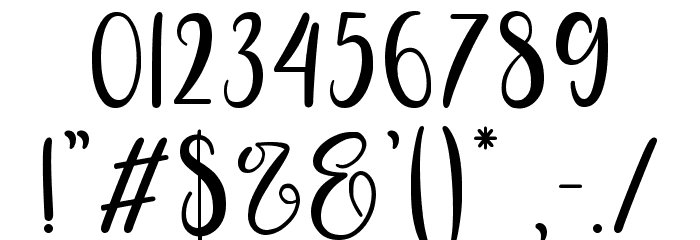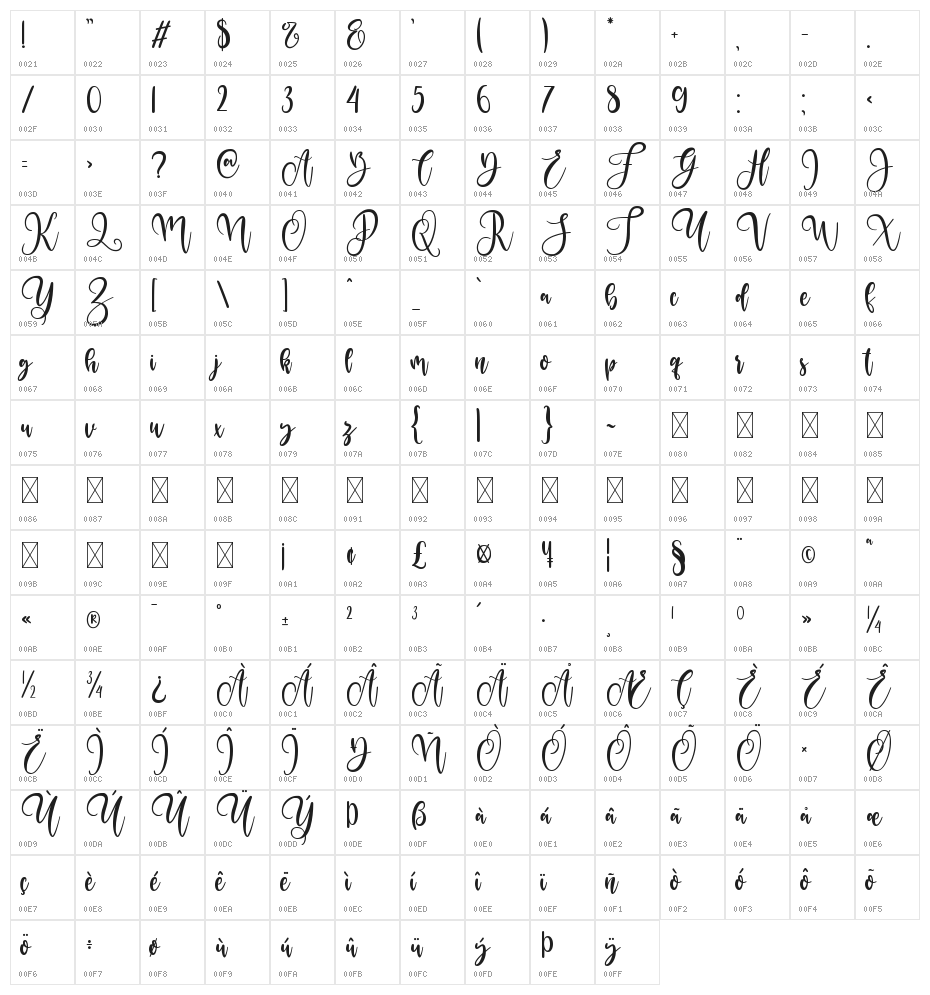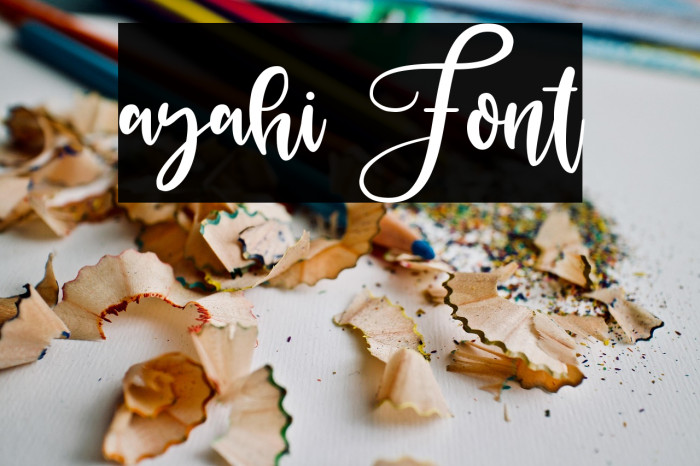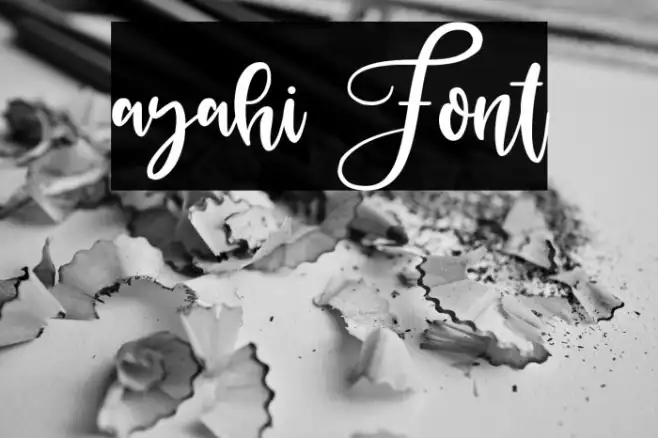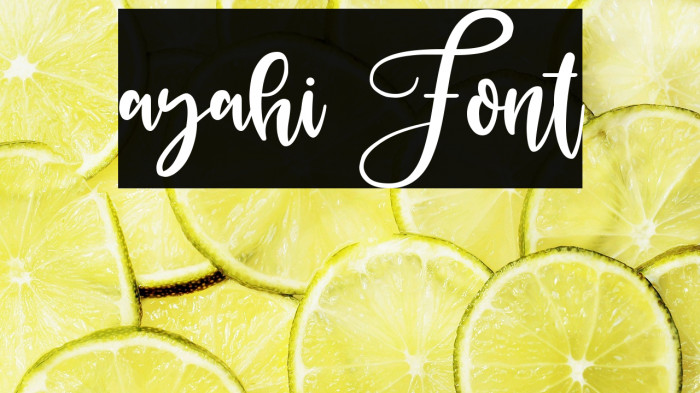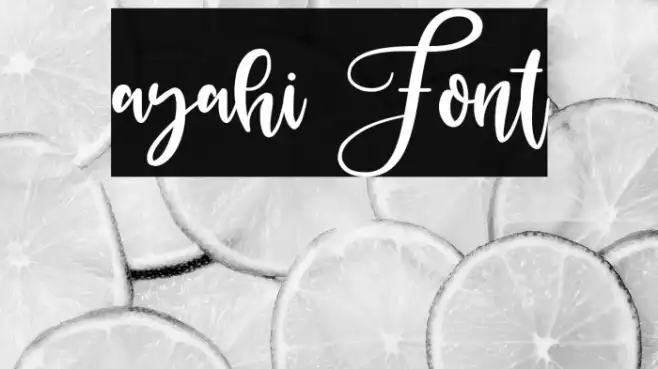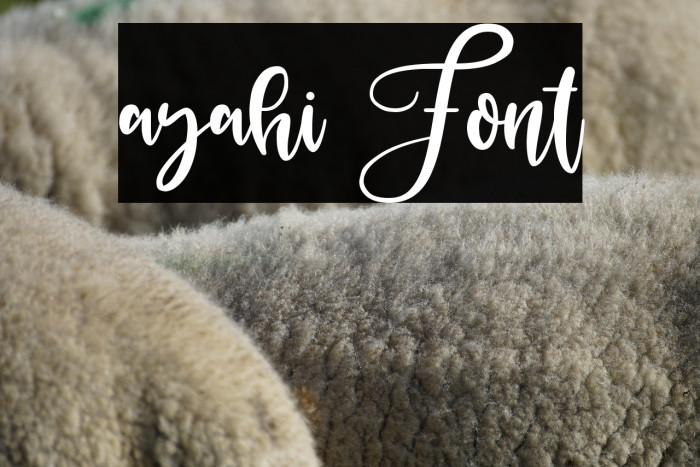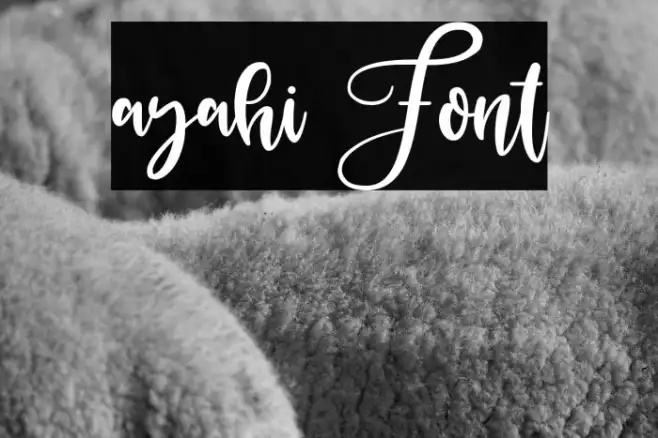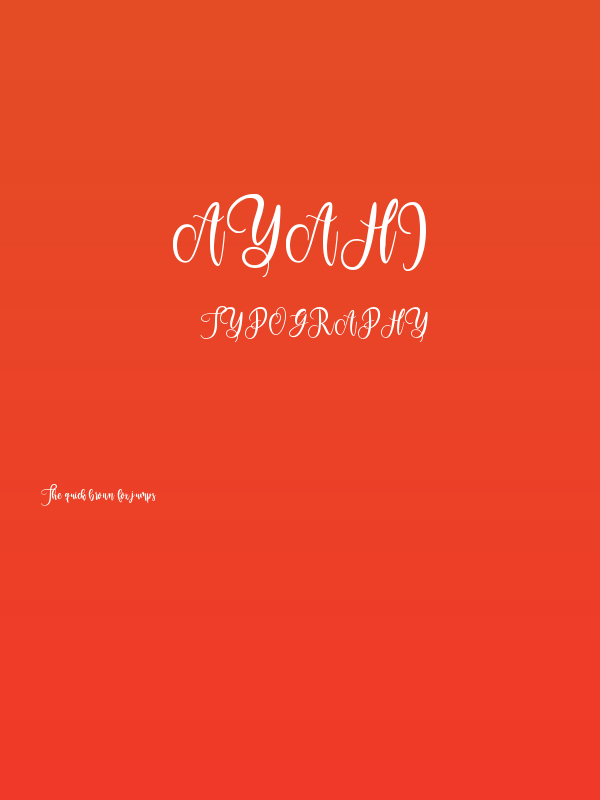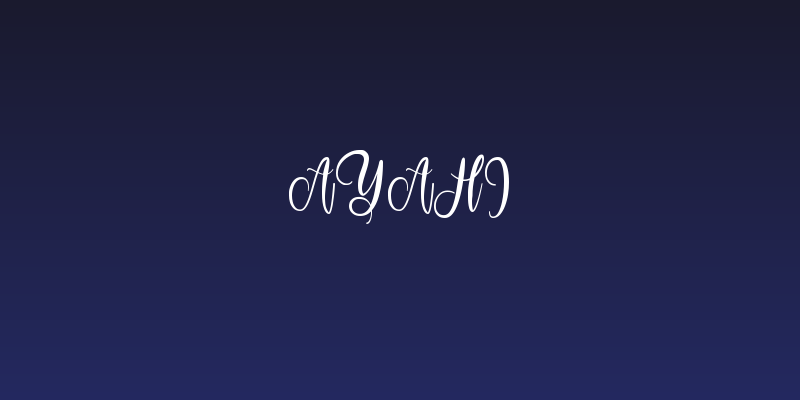
ayahi Font
ayahi Description
This font features a playful and elegant script style with a handwritten appearance. The uppercase letters are characterized by flowing, interconnected strokes that give a sense of movement and fluidity. The lowercase letters maintain a consistent style, with some letters featuring loops and curls that add to the whimsical nature of the font. The numbers are bold and clear, maintaining the same playful style as the letters. Special characters are well-integrated, matching the overall aesthetic. This font is ideal for projects that require a personal touch, such as invitations, greeting cards, or branding materials.
| Proposed Projects | Ideal for invitations, greeting cards, branding, and decorative projects. |